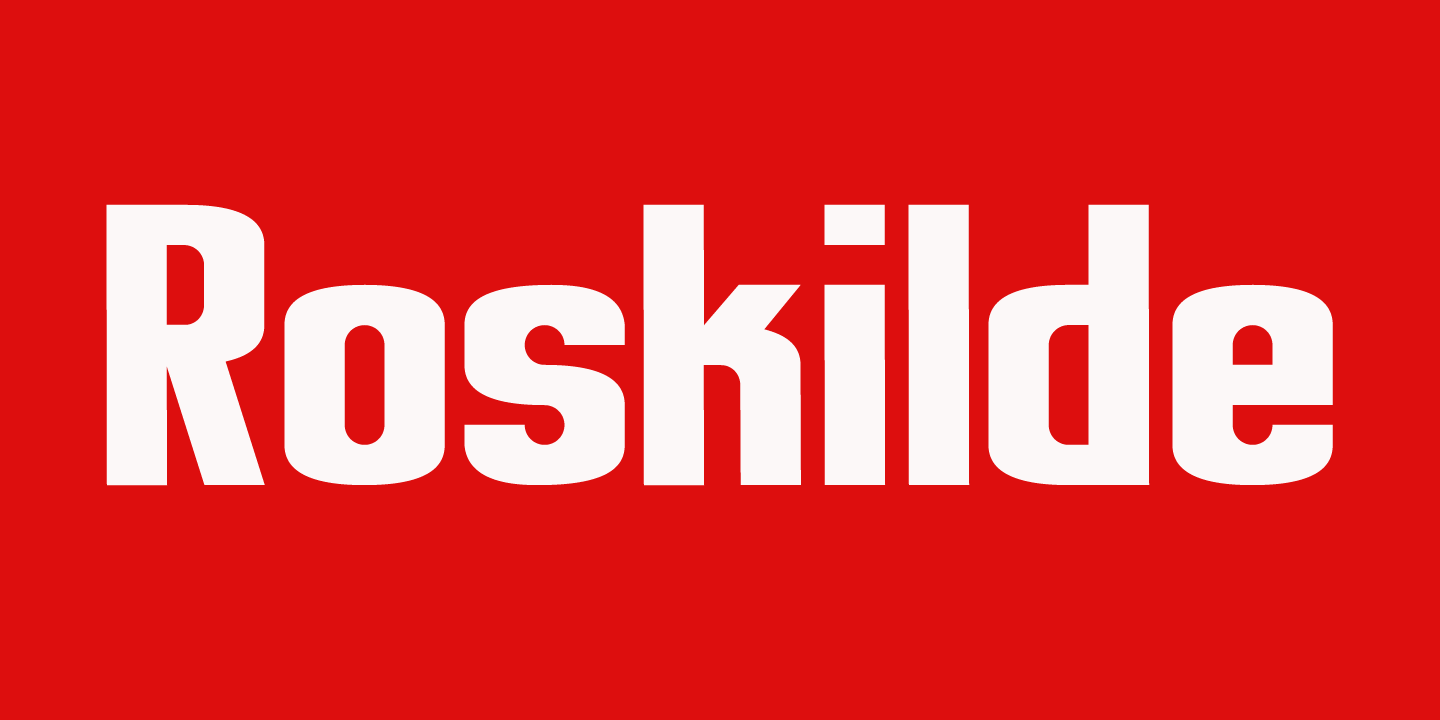
Roskilde Font is perfect for magazine layouts, book covers, editorial design, newspaper headlines, academic publications, corporate presentations, website headers, mobile applications, signage design, poster creation, and any project that requires clean, professional typography with exceptional readability.
What makes Roskilde Font exciting is its perfect balance between contemporary design trends and timeless elegance. This sophisticated typeface features carefully crafted letterforms that deliver outstanding legibility while maintaining a distinctive character that sets your content apart. The font's geometric precision combined with subtle humanist touches creates a unique visual identity that works seamlessly across both digital and print media.
Roskilde Font comes in multiple font families including Regular, Medium, Bold, Light, Italic, and Condensed variations, offering designers comprehensive flexibility to create hierarchical text structures and achieve the perfect typographic balance for any project.
Whether you're designing corporate communications, editorial layouts, or digital interfaces, Roskilde Font Free Download provides the ideal solution for projects demanding both functionality and aesthetic appeal. This versatile typeface excels in both headline and body text applications, ensuring consistent visual quality across all design elements. The clean architecture and refined details of Roskilde Font make it an indispensable tool for designers who prioritize clarity, professionalism, and modern sophistication in their typographic choices.